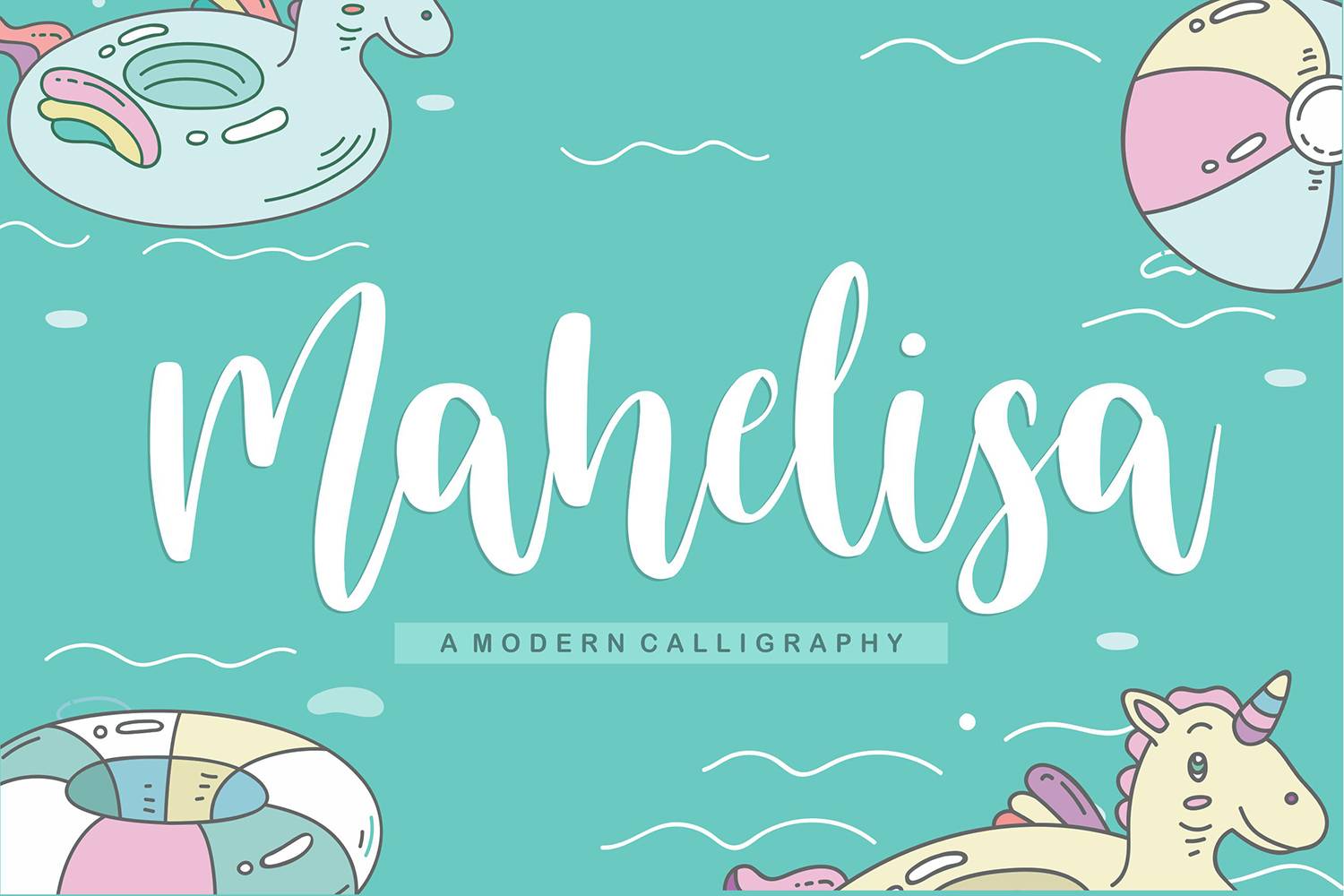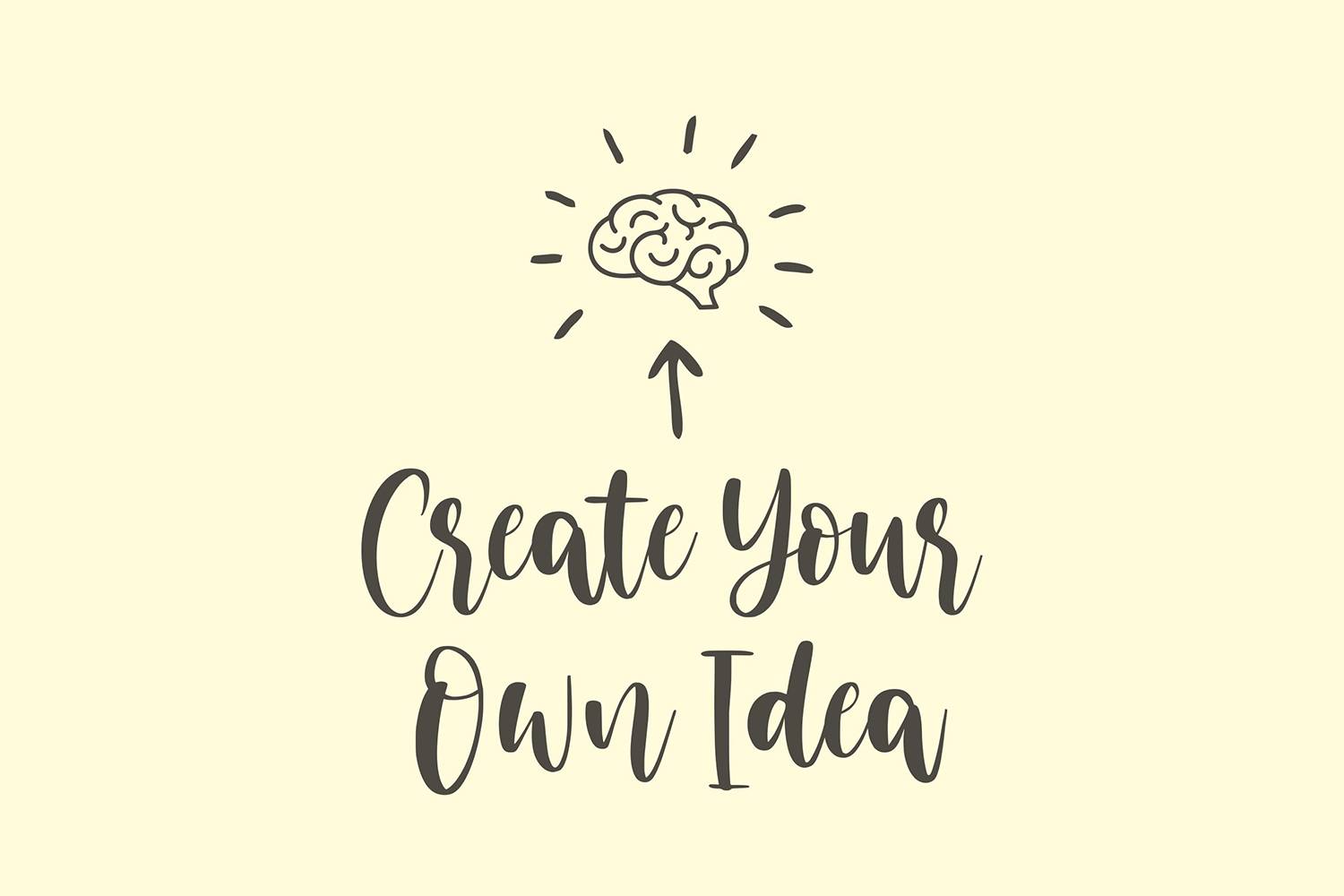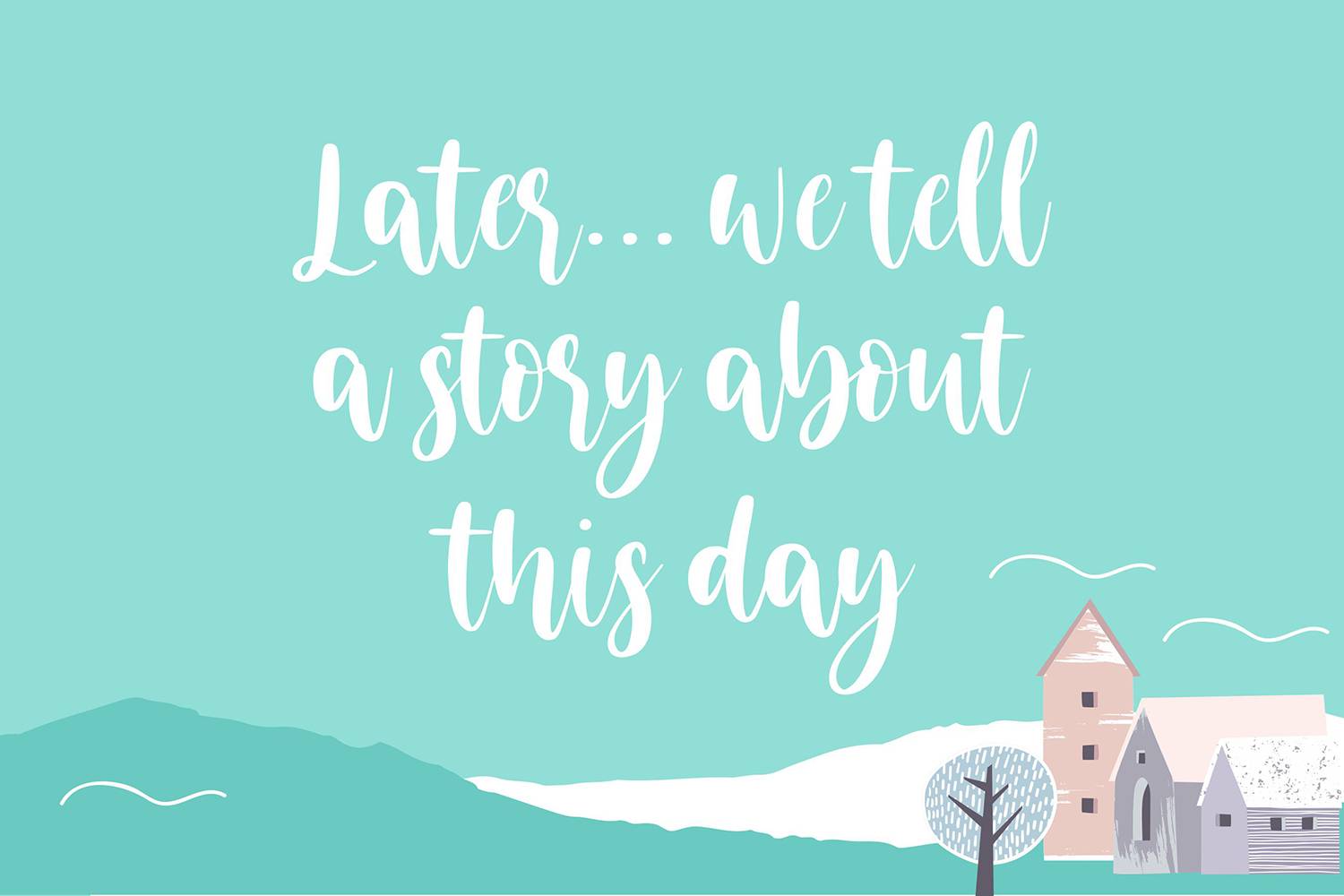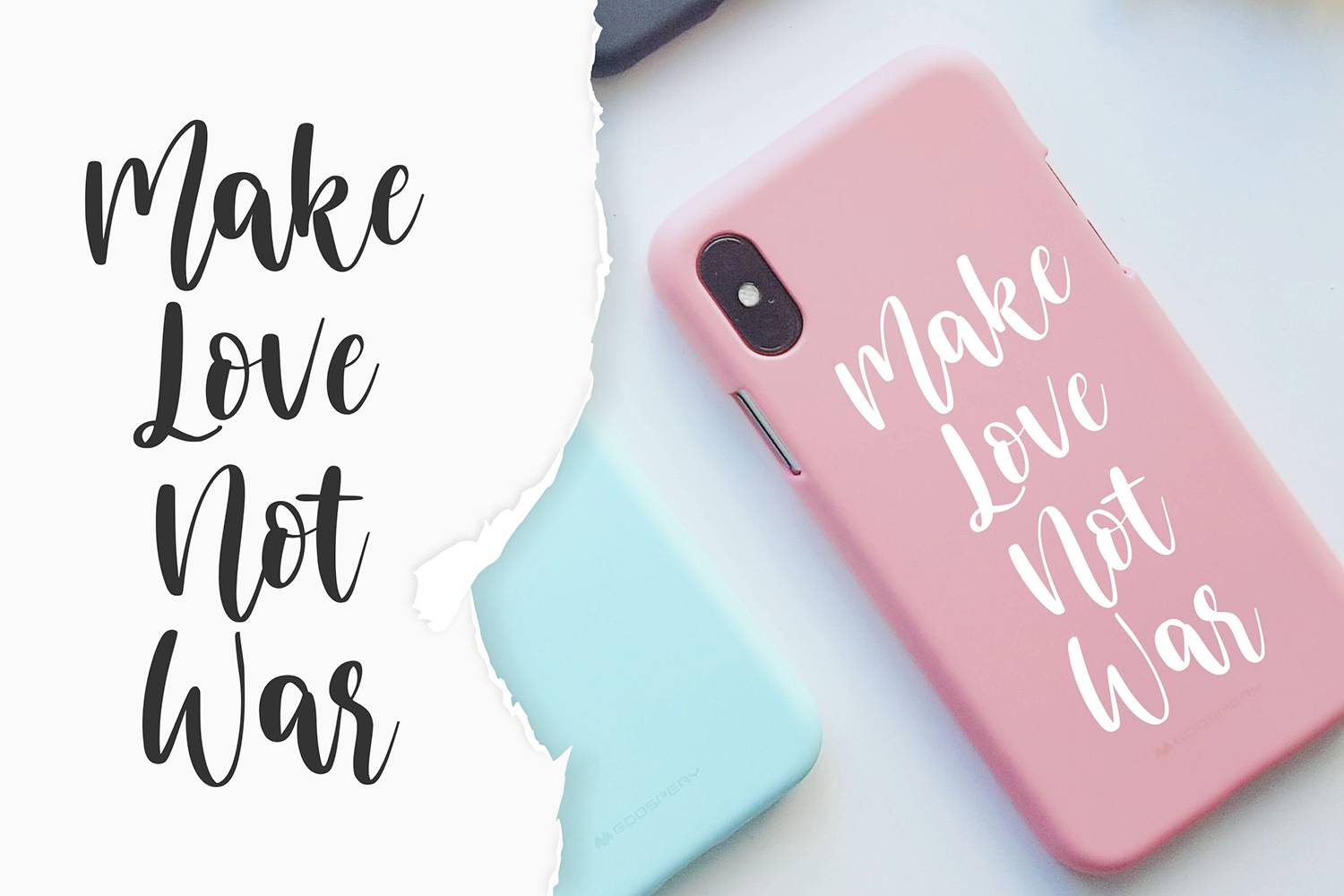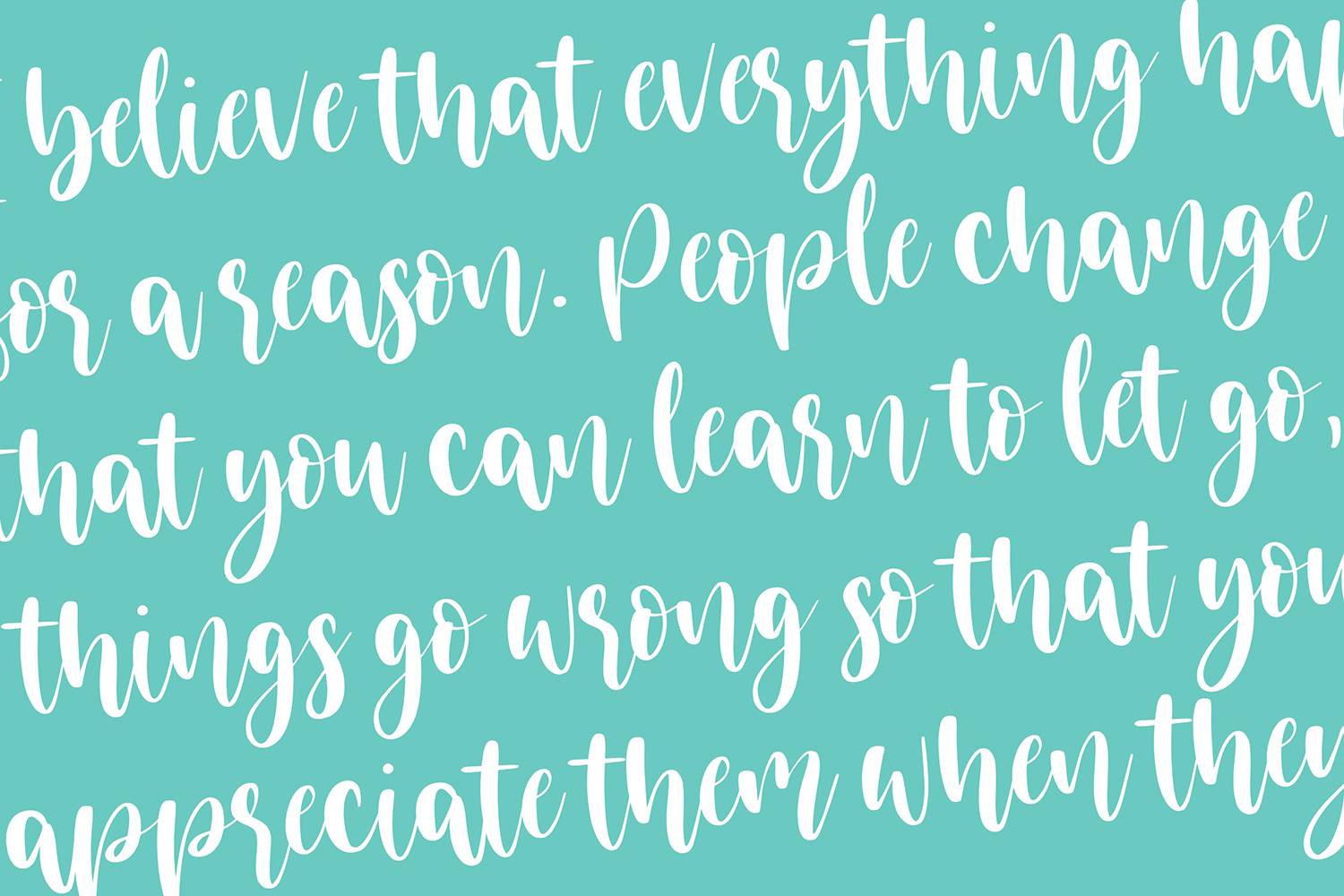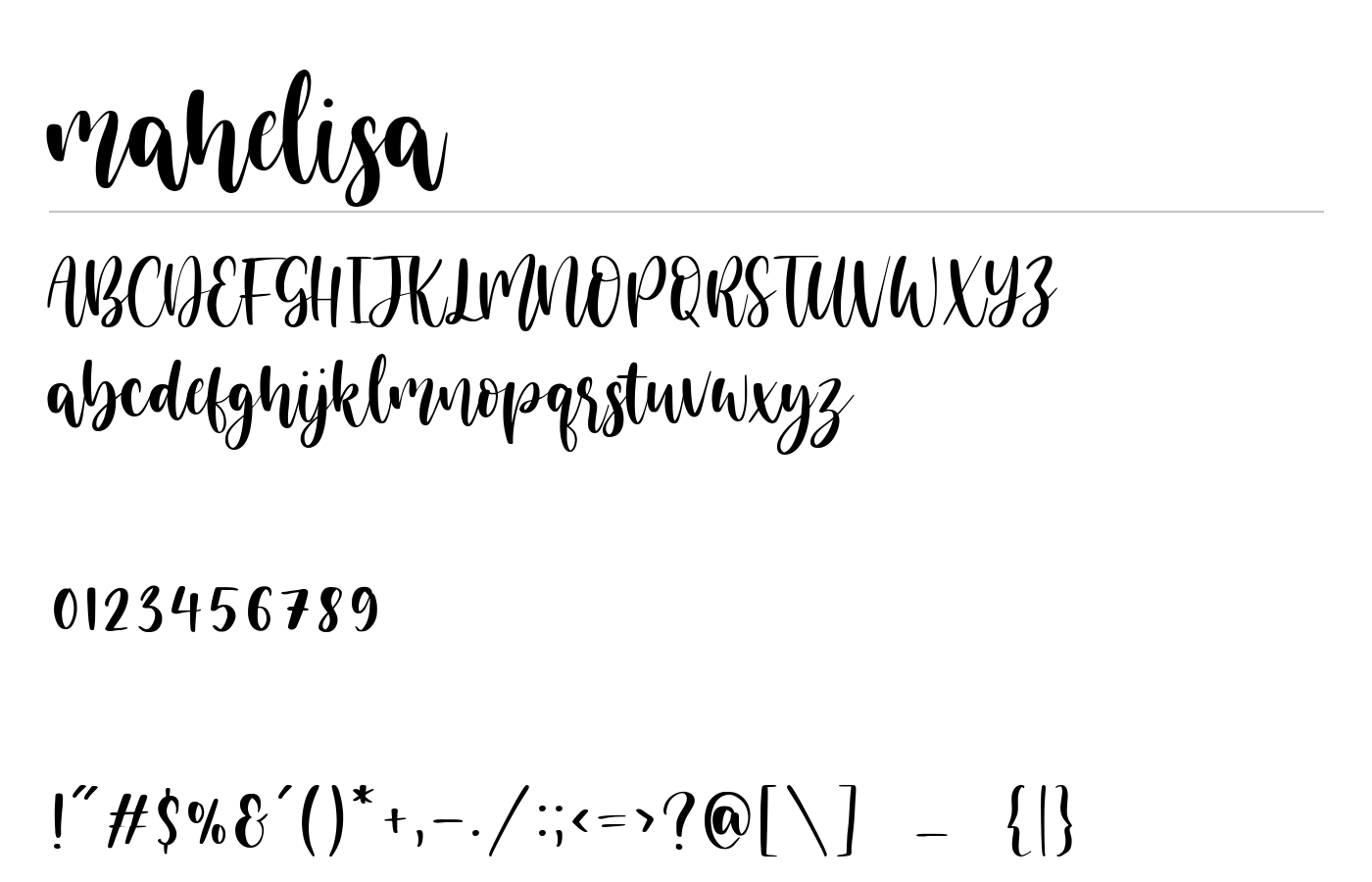
Mahelisa is a playful and elegant handwritten script font with smooth, flowing strokes and a dynamic, casual charm. Its lively letterforms, featuring both uppercase and lowercase with distinctive loops and curves, make it perfect for adding a personal, creative touch to invitations, logos, and stylish branding projects. This font excels in designs that seek warmth and approachability, especially in fashion, beauty, and lifestyle contexts.
Mahelisa Font
About Mahelisa Font